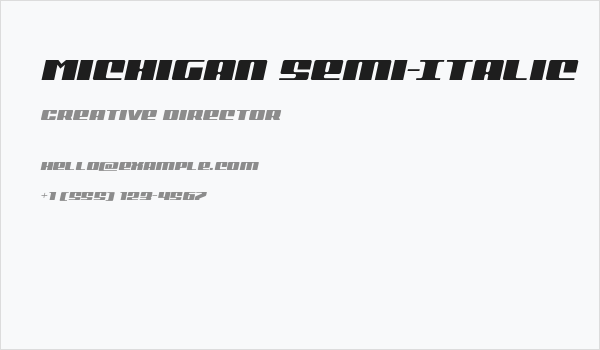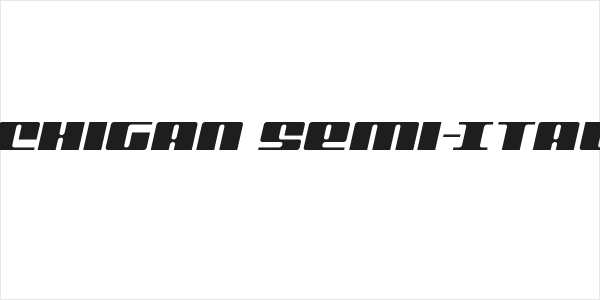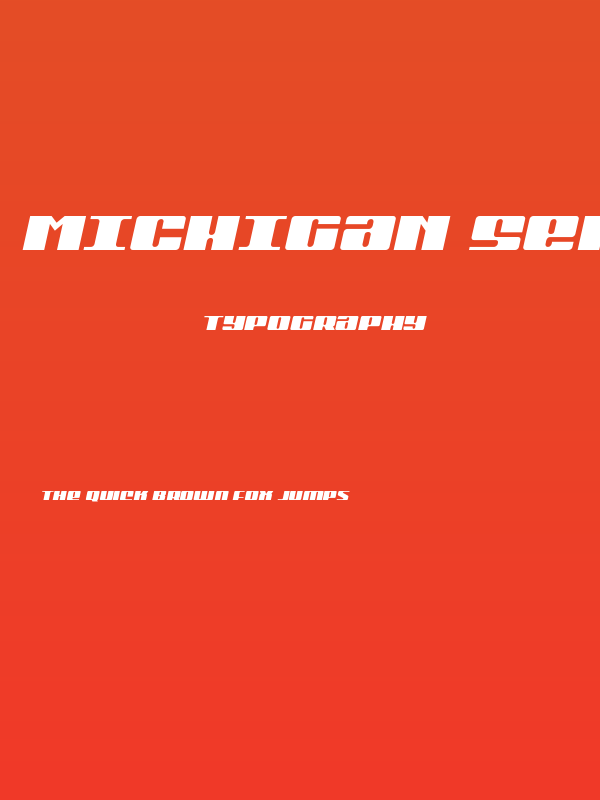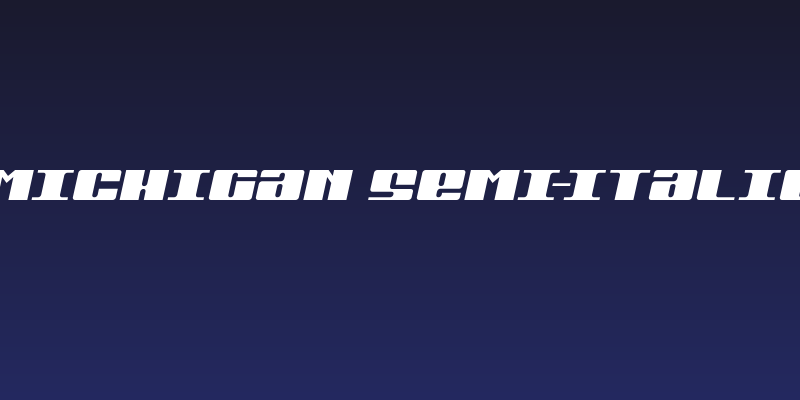
Michigan Semi-Italic Font
Michigan Semi-Italic Description
This font features a bold and dynamic style with a semi-italic slant, giving it a sense of motion and energy. The characters are wide and have a strong presence, making them ideal for impactful designs. The strokes are thick and consistent, providing a uniform appearance across all characters. The font includes both uppercase and lowercase letters, numbers, and a variety of special characters, ensuring versatility for different design needs. Its geometric shapes and sharp angles contribute to a modern and edgy look, suitable for contemporary projects.
| Proposed Projects | Ideal for sports branding, posters, headlines, and any project needing a strong, energetic typeface. |